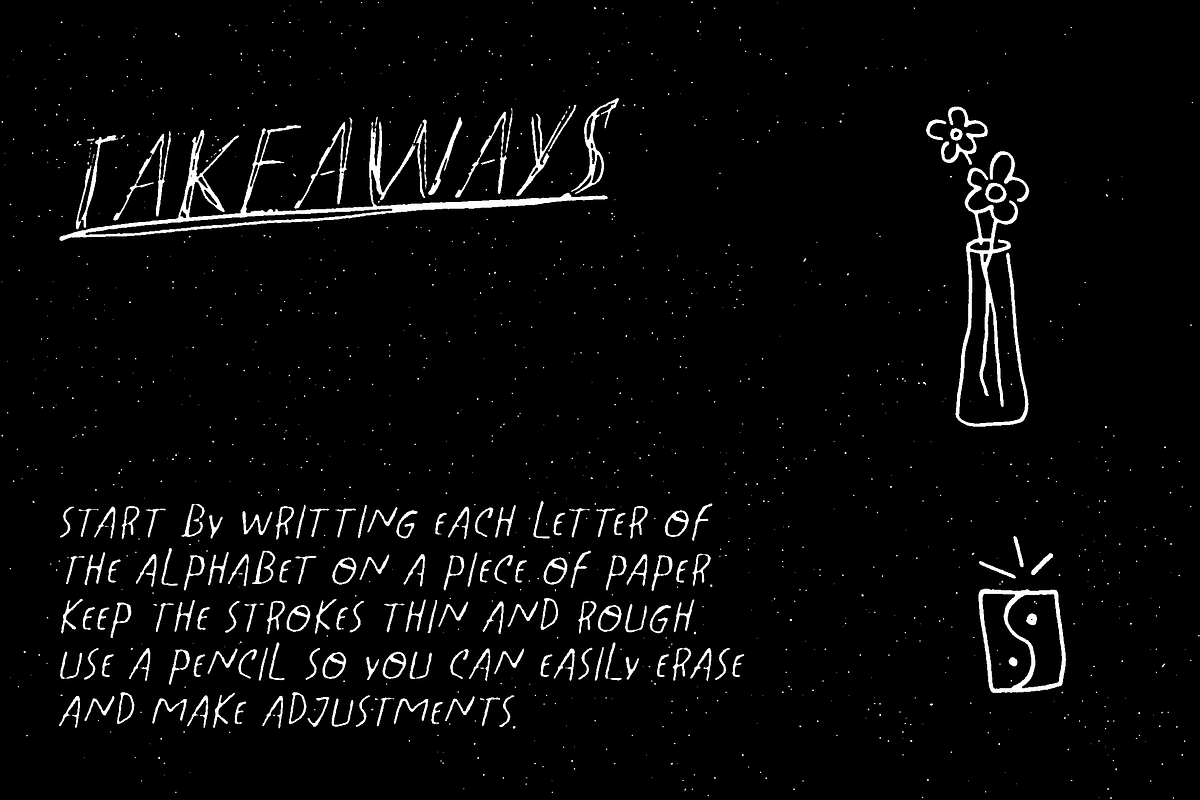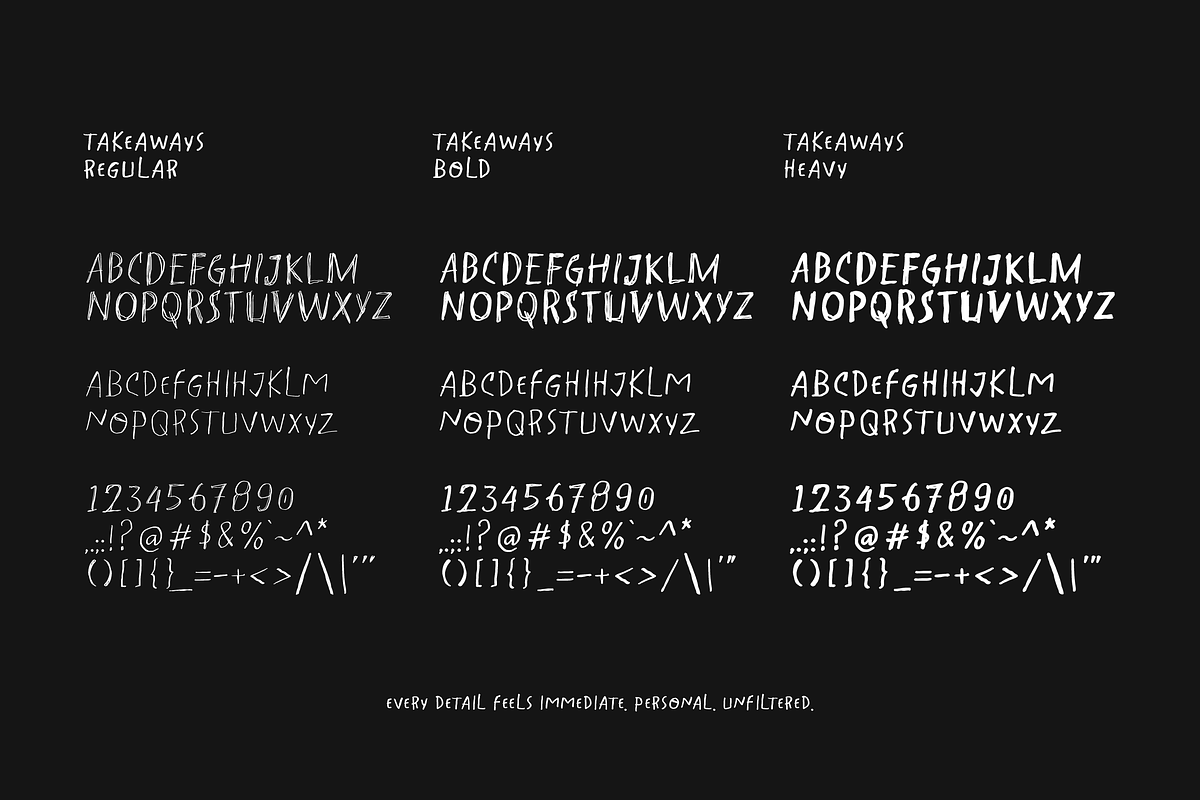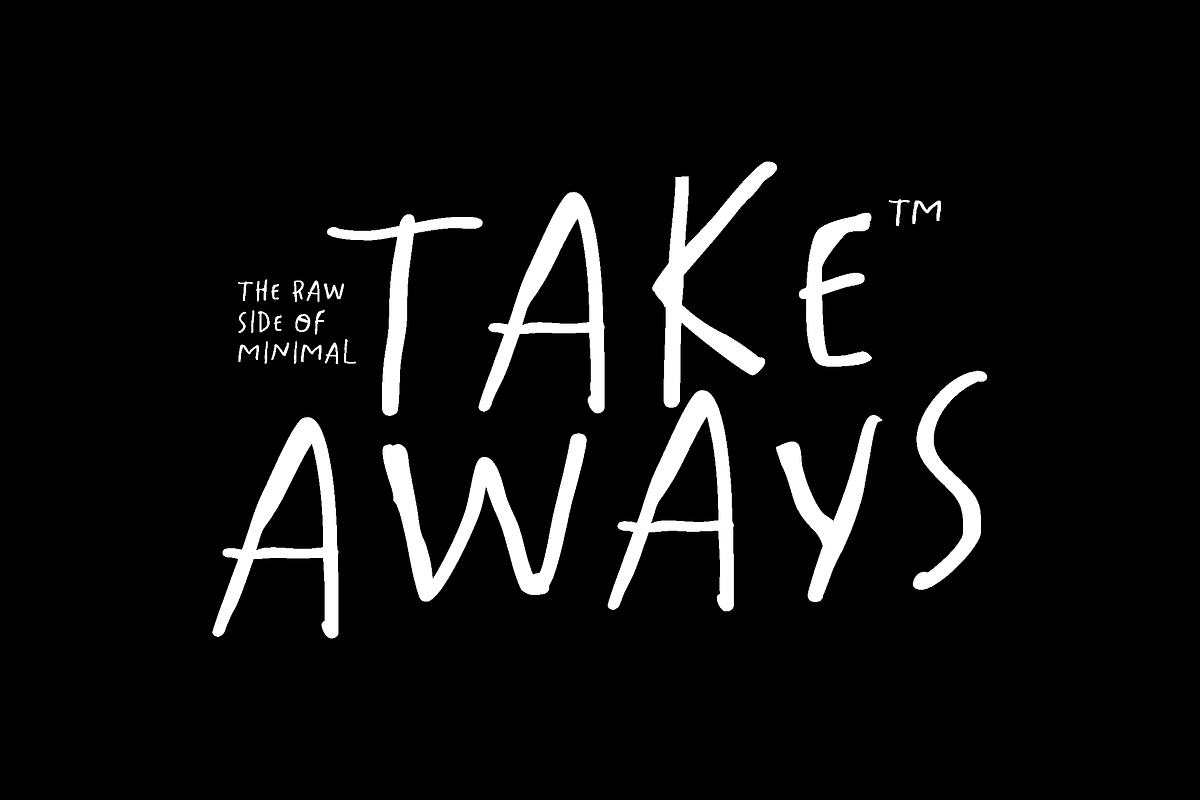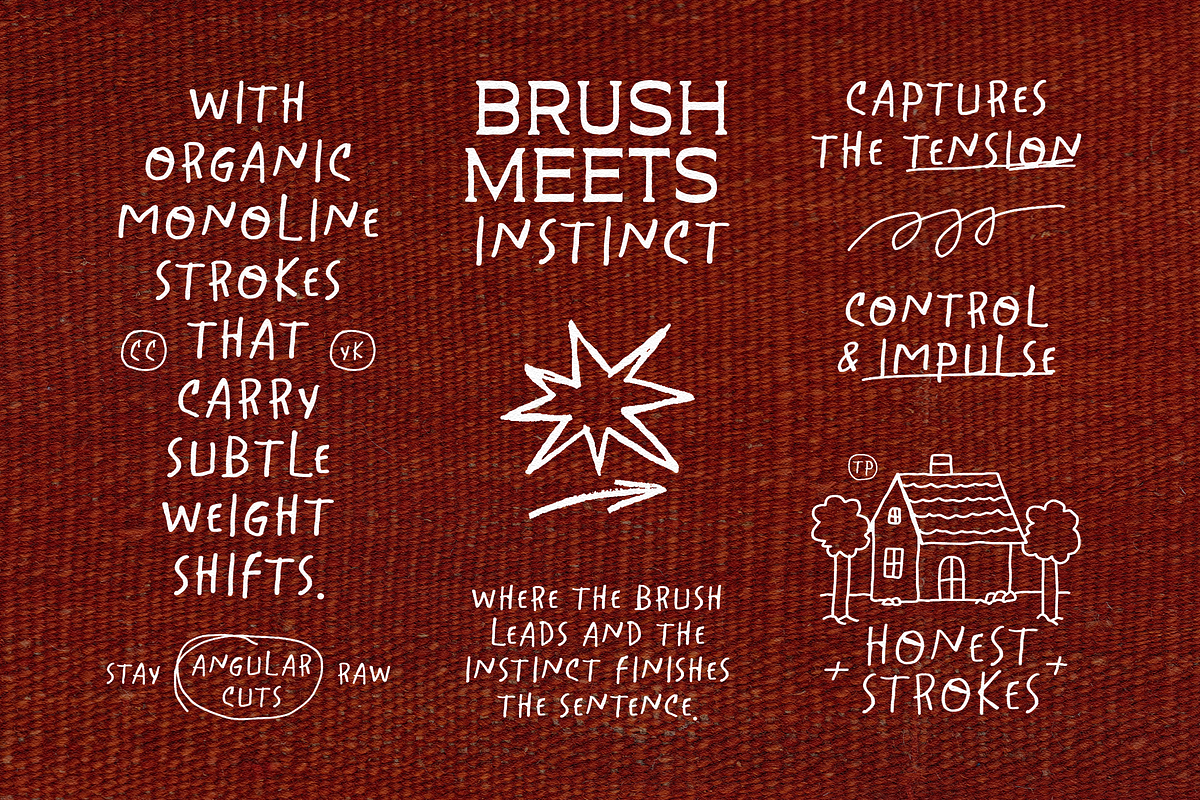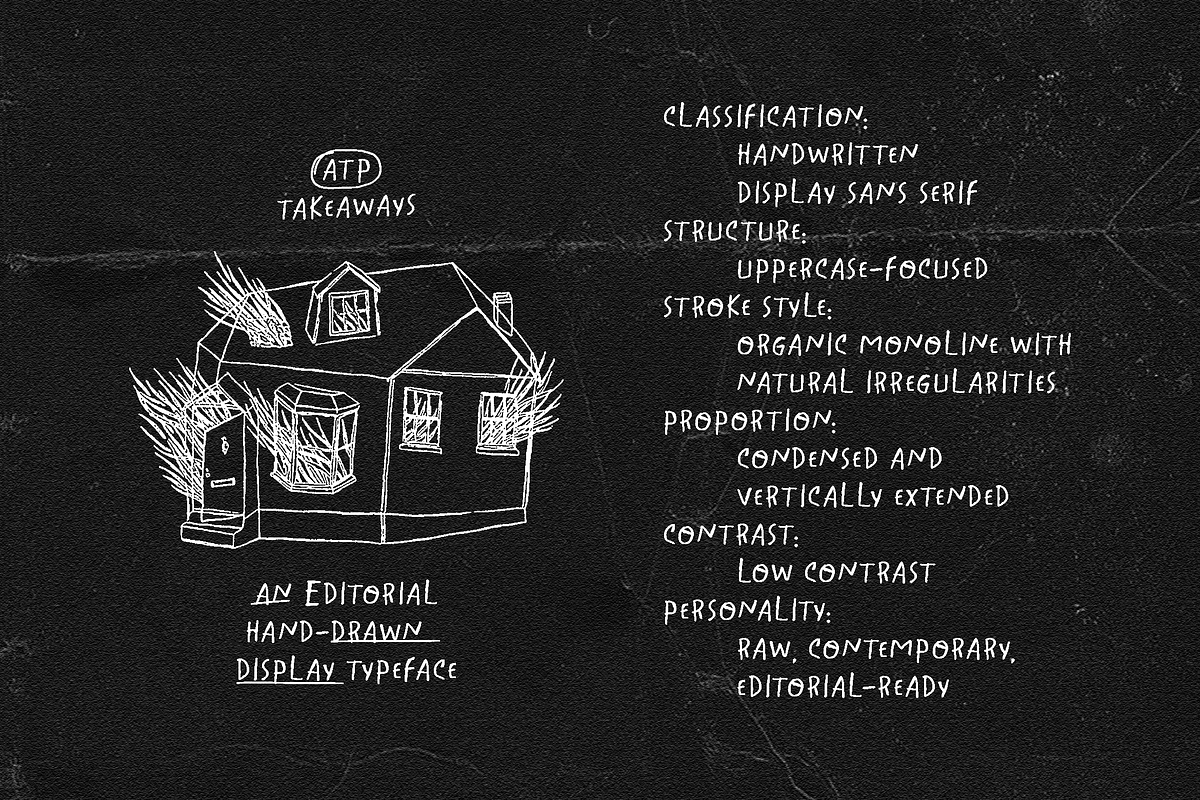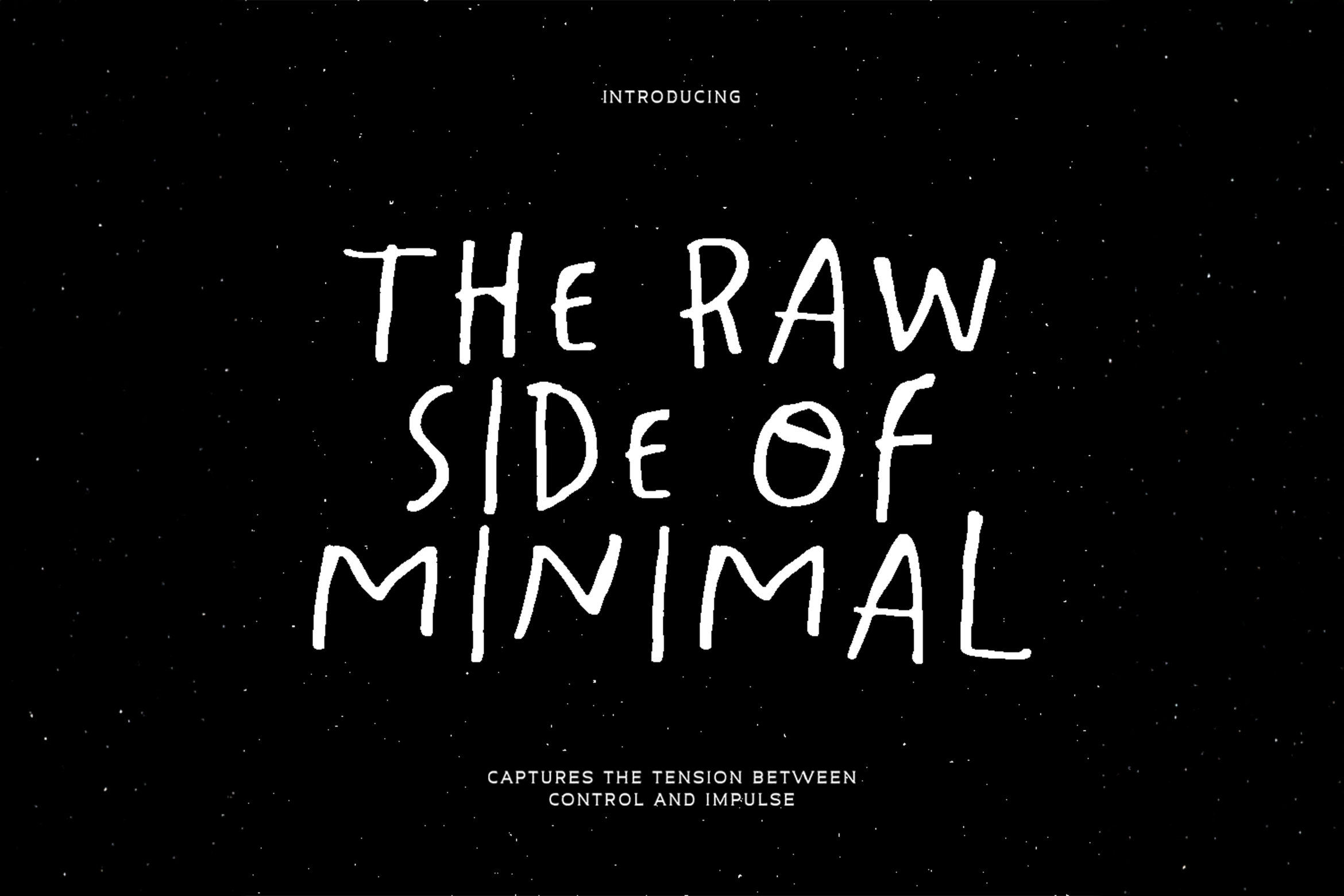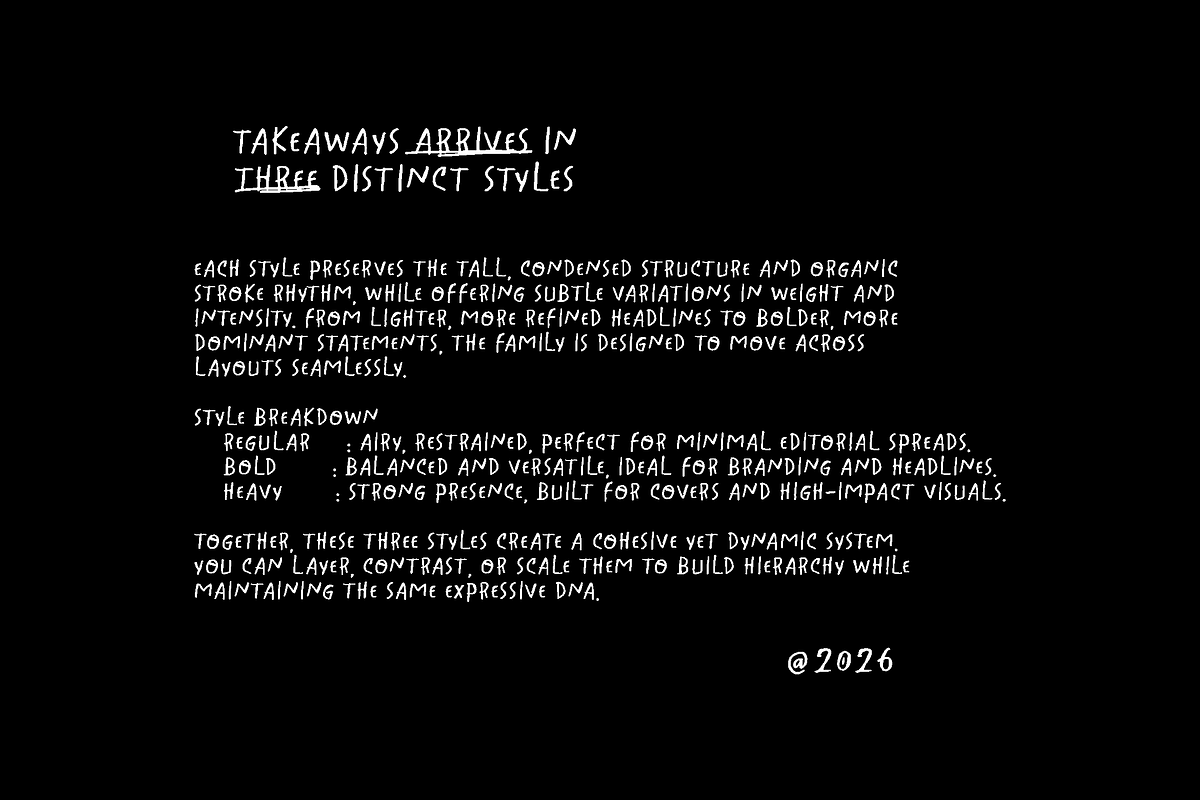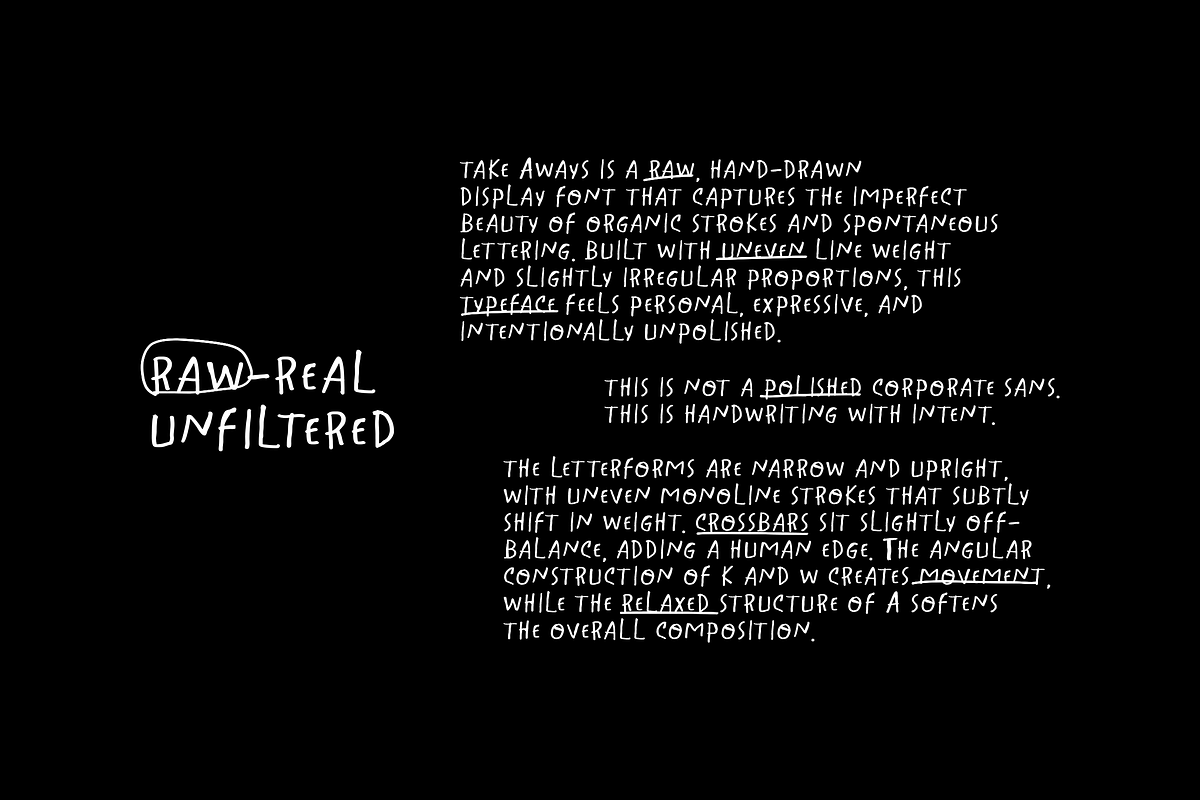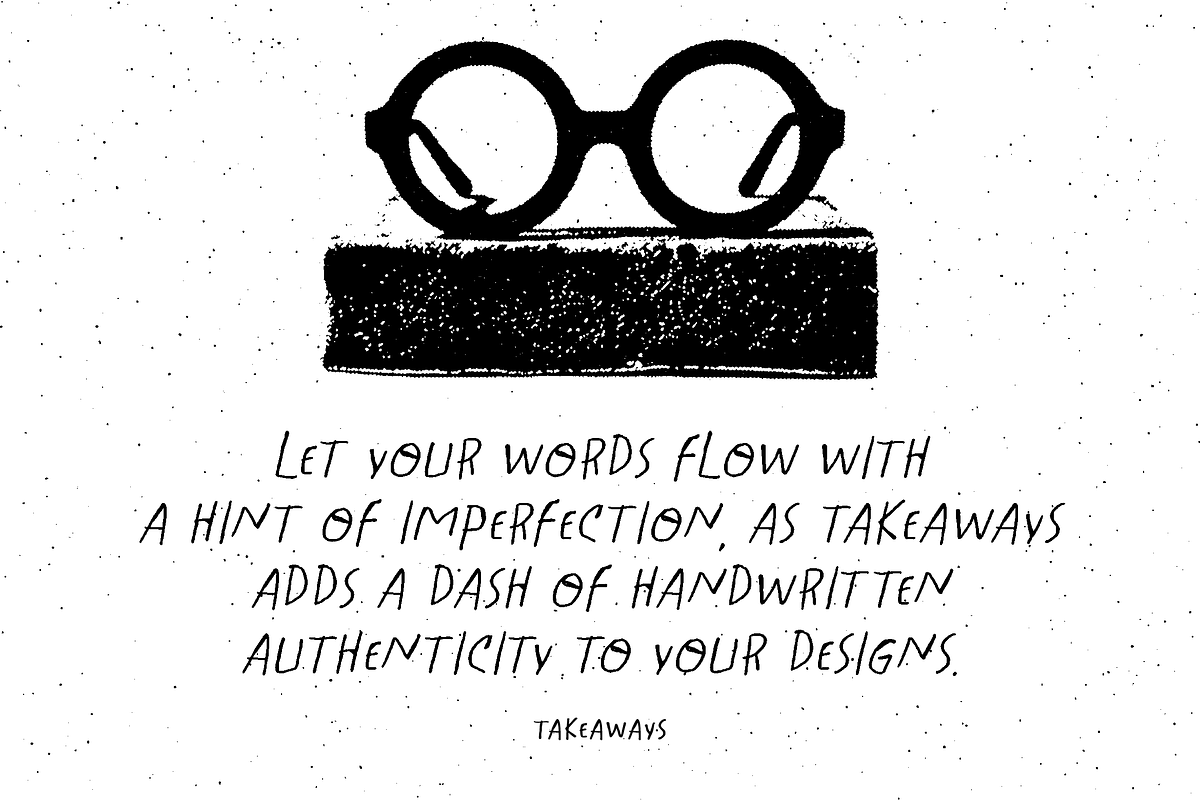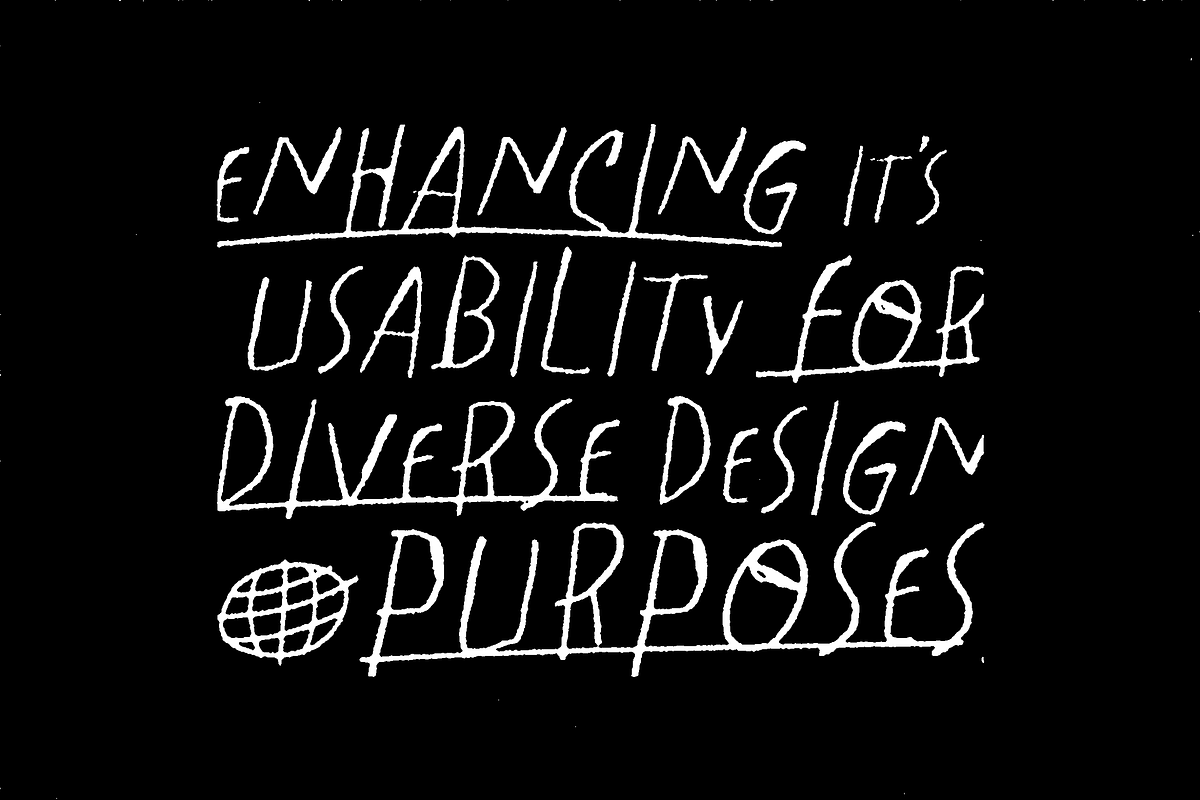
Takeaways - Handwritten Display Font
Takeaways feels like something pulled straight from the margins of a creative director’s notebook. It carries the rhythm of quick marker strokes, the confidence of tall proportions, and the quiet tension of imperfect geometry.
This is not a polished corporate sans. This is handwriting with intent.
The letterforms are narrow and upright, with uneven monoline strokes that subtly shift in weight. Crossbars sit slightly off-balance, adding a human edge. The angular construction of K and W creates movement, while the relaxed structure of A softens the overall composition.
Every detail feels immediate. Personal. Unfiltered.